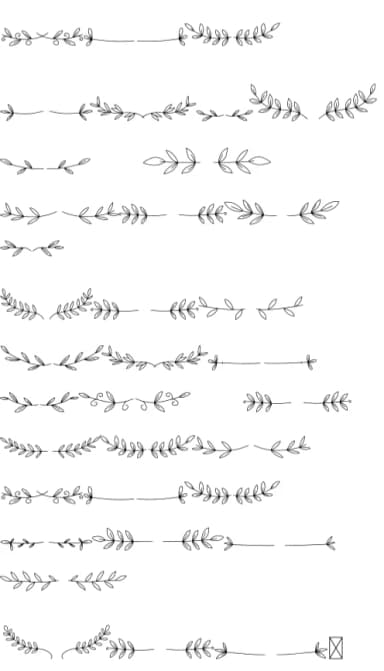
Frog Divider from CraftedType Studio is a dingbat typeface built entirely from botanical ornaments, featuring hand-crafted leaf and nature-inspired motifs as divider characters. These aren't static borders or repetitive rules, but dynamic flourishes that bring organic visual structure to your page layouts. The collection provides multiple distinct divider styles to choose from, letting you layer complexity and visual interest without relying on the same graphic repeated across your design.
Wedding invitation suites gain real character from modular border systems like this, where pairing different leaf patterns creates visual depth without overwhelming the body text. Sticker sheets and DIY craft labels also work well with the nature theming; botanical details maintain clarity at small scales and photograph beautifully for Etsy product listings. Beauty and skincare packaging relies on natural imagery to communicate brand values, and having dedicated ornament characters means you can build custom dividers that feel integral to the design rather than borrowed from elsewhere. Feminine branding across wedding, beauty, and lifestyle sectors has consistently reached for botanical motifs, and this font gives you the building blocks to execute that vision cohesively.
The font works best for designers building cohesive botanical systems across products, stationery, and marketing collateral, where consistency in ornamental language matters as much as the primary typeface. Get it on Creative Fabrica.
Frog Divider Font is a versatile dingbats font that works for both headings and body text. Pair it with a contrasting sans-serif or serif font to add visual interest and a clear distinction between titles and body copy.